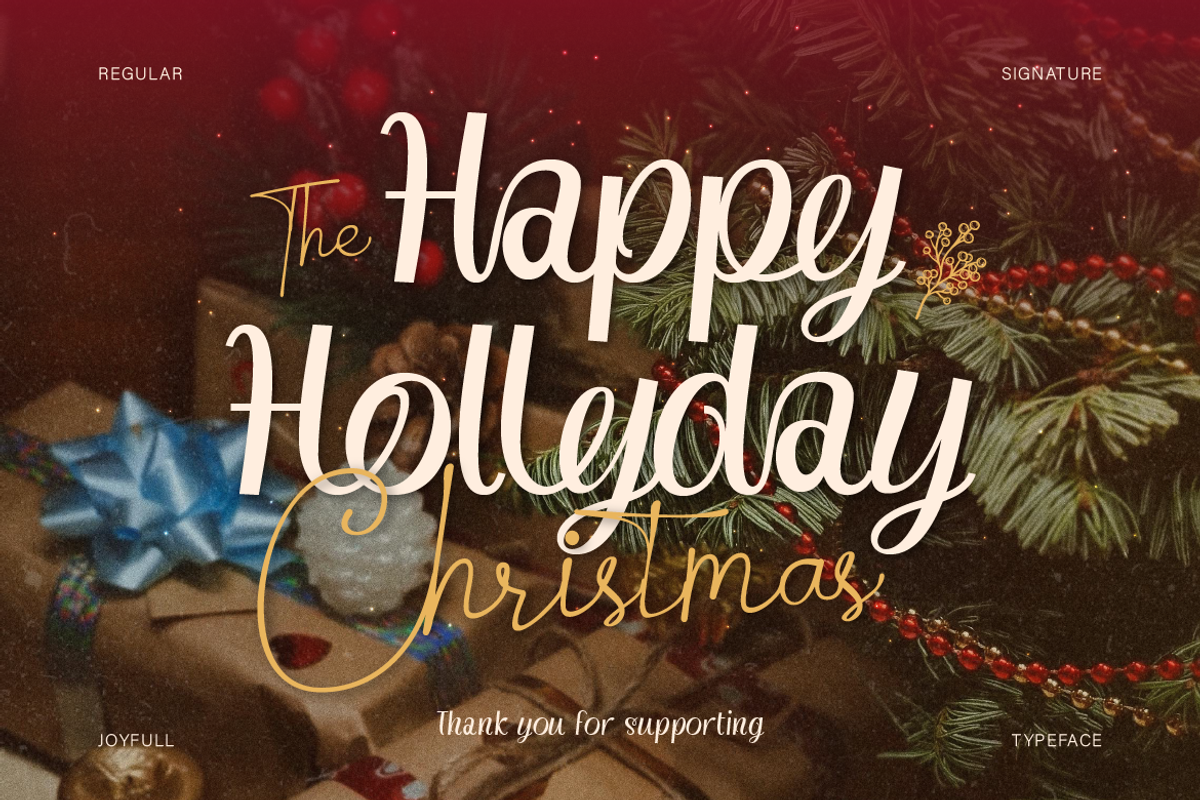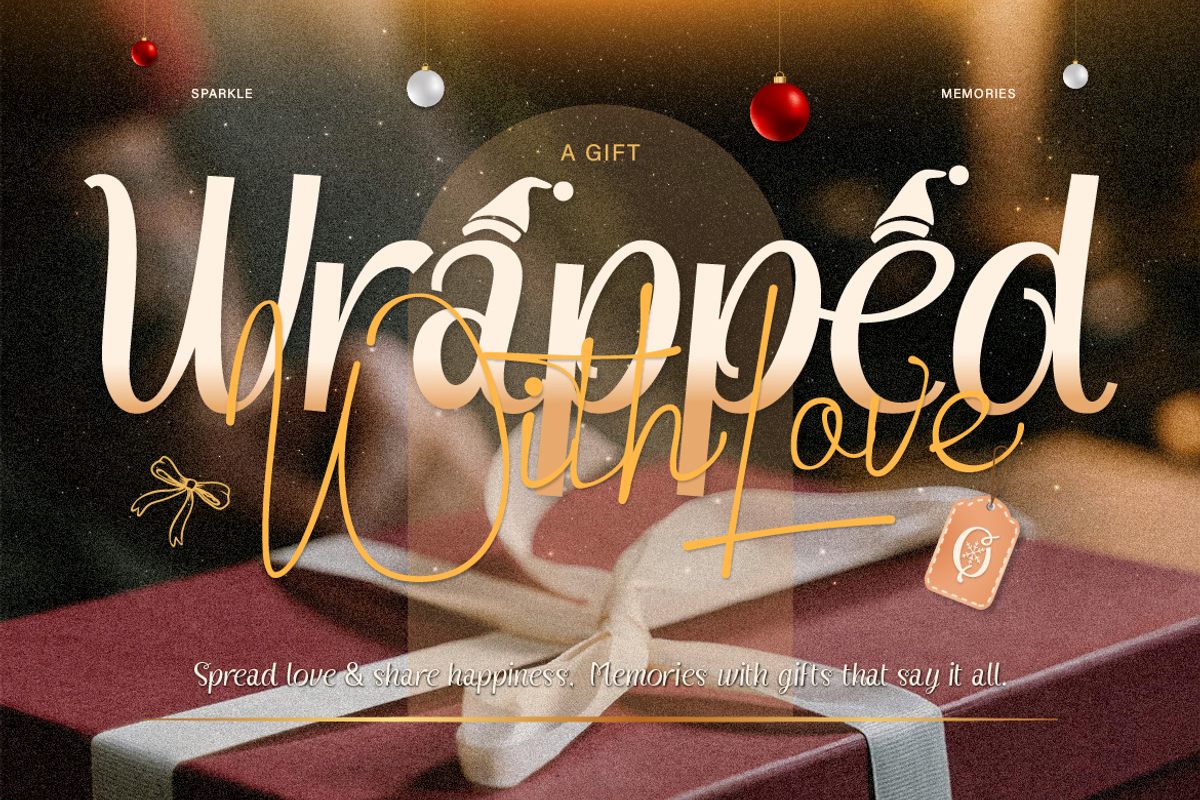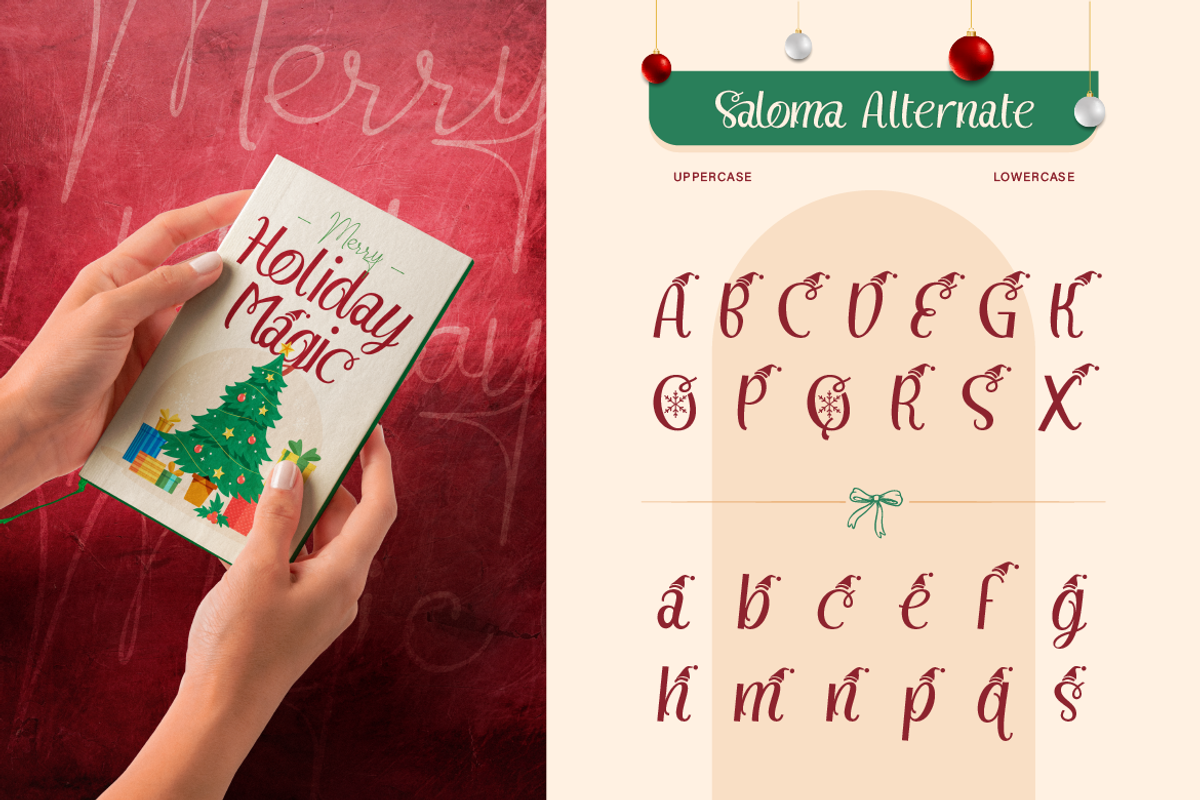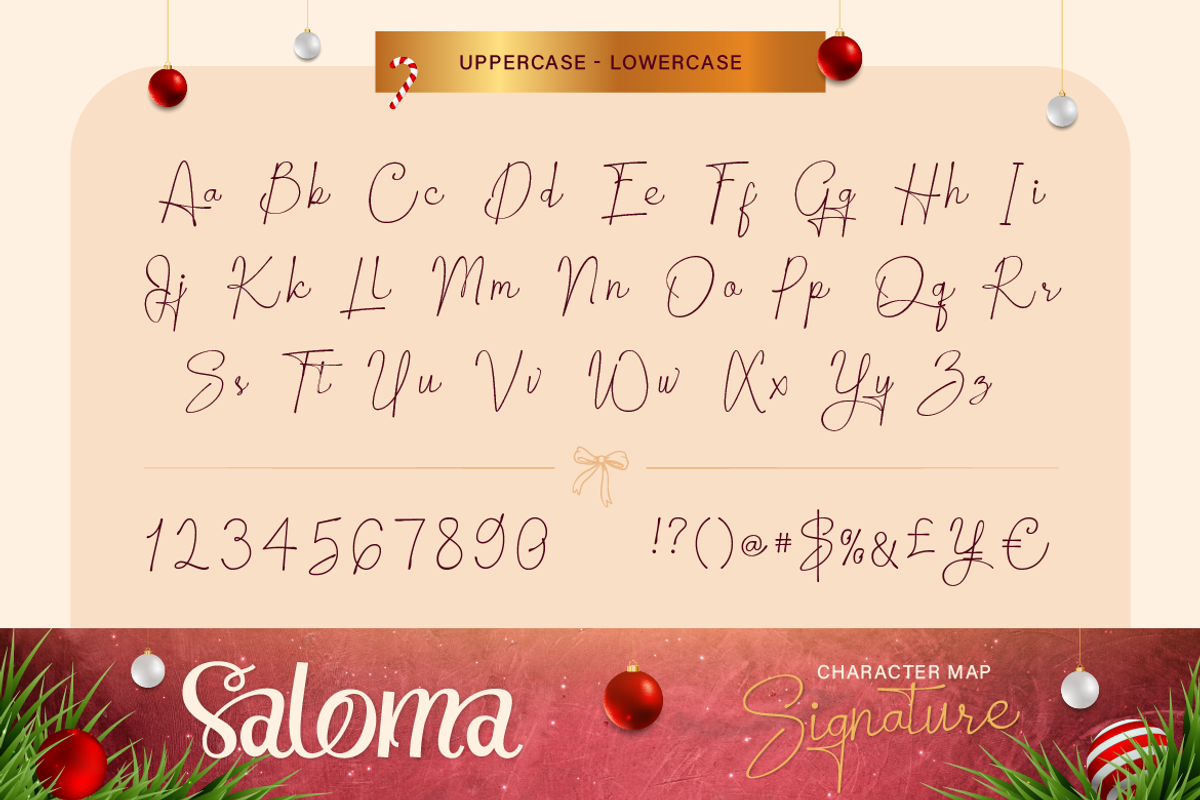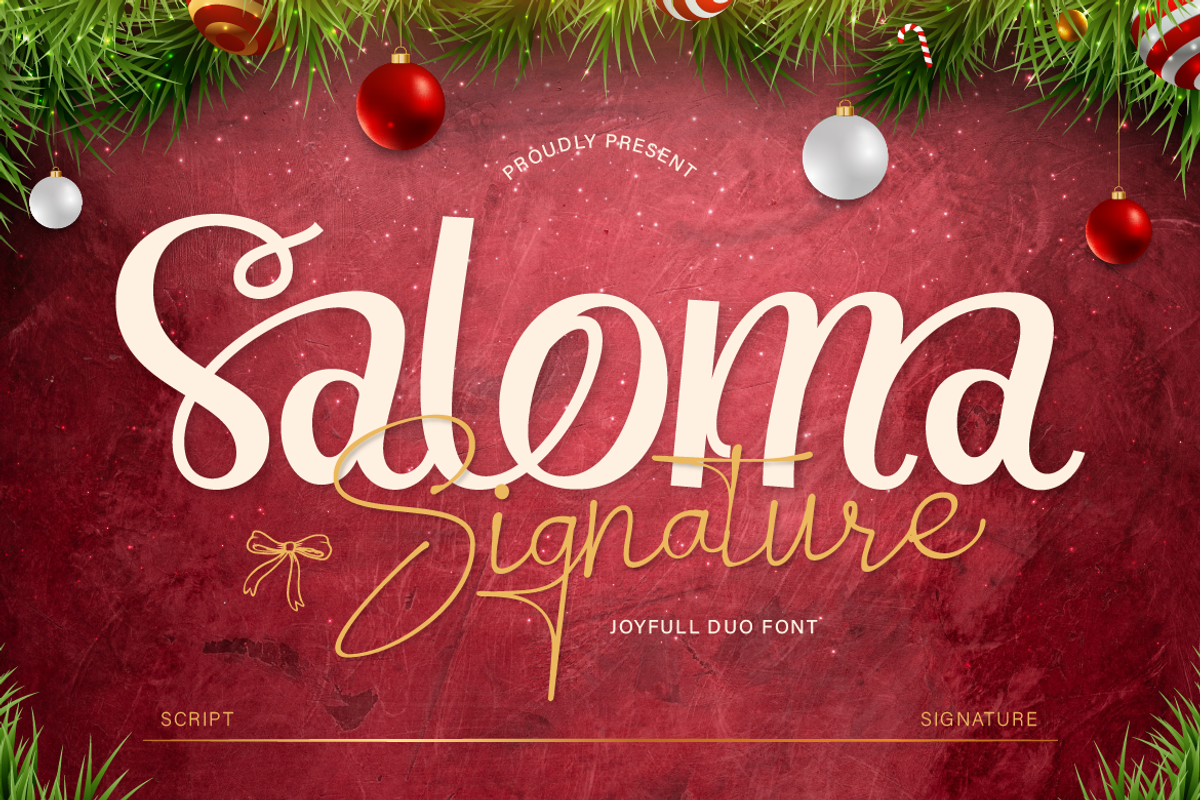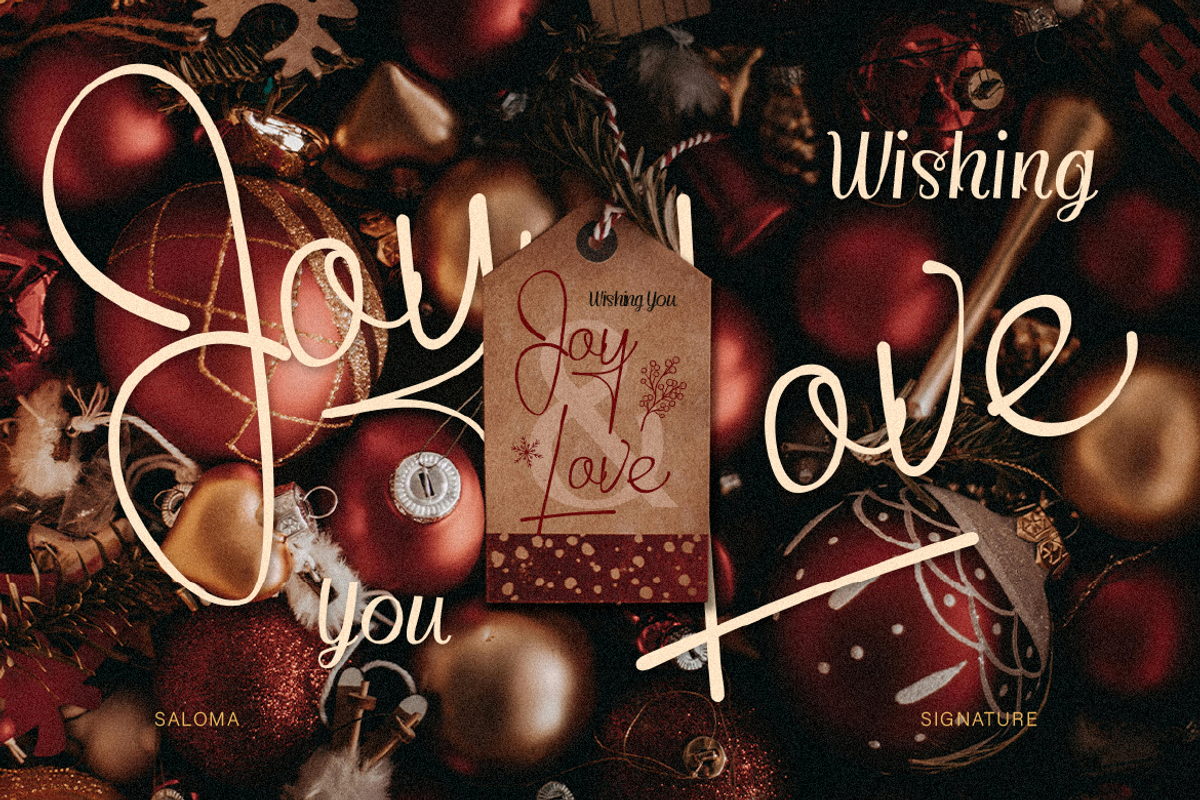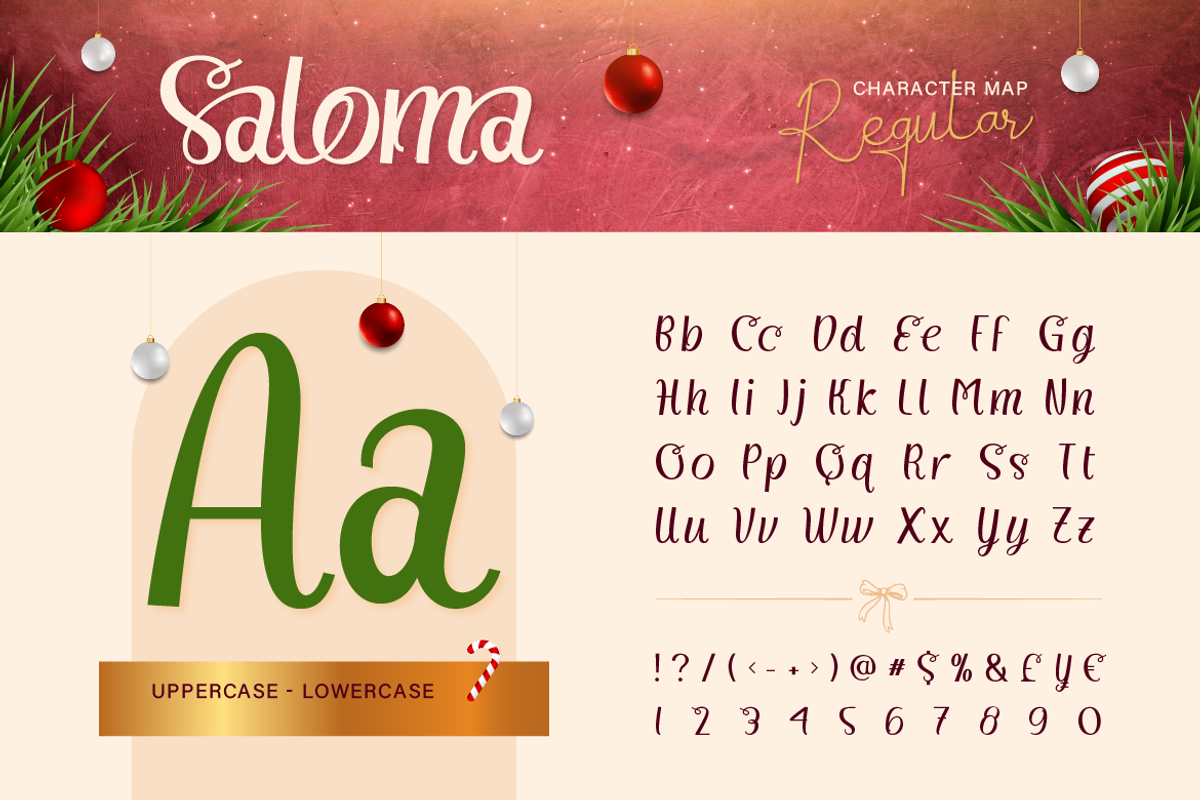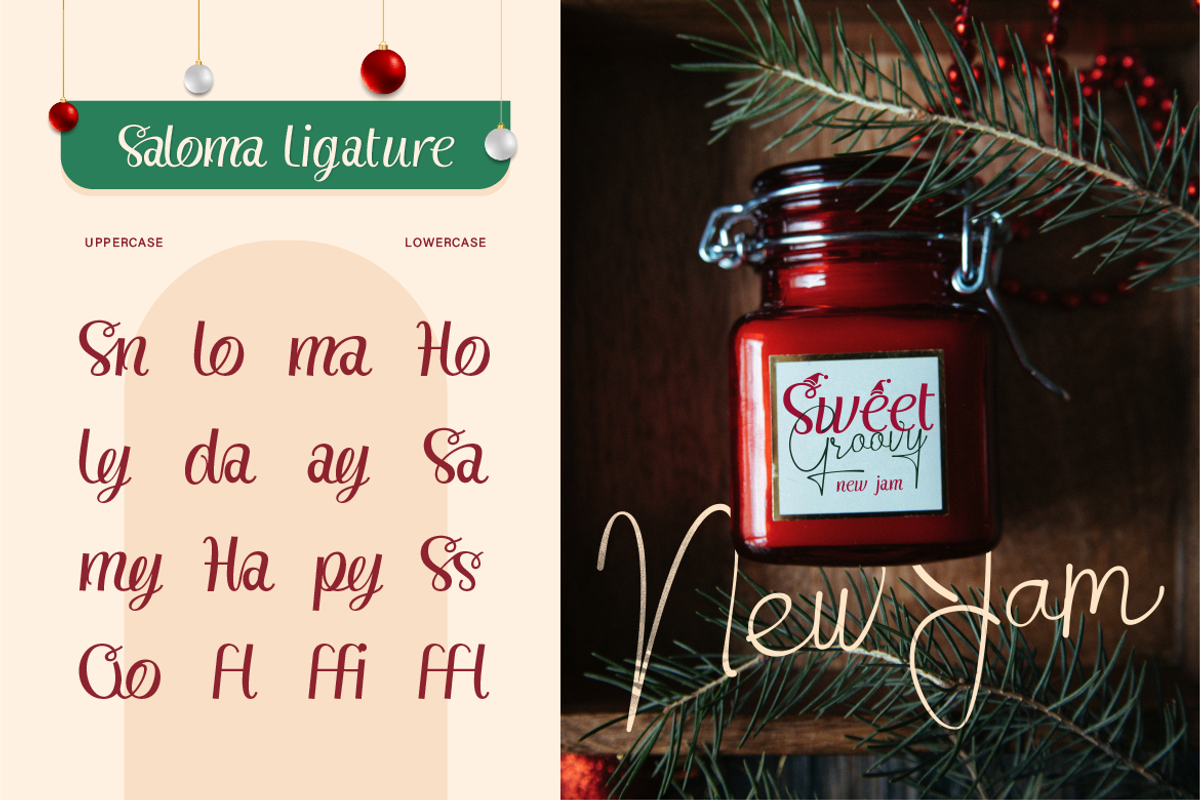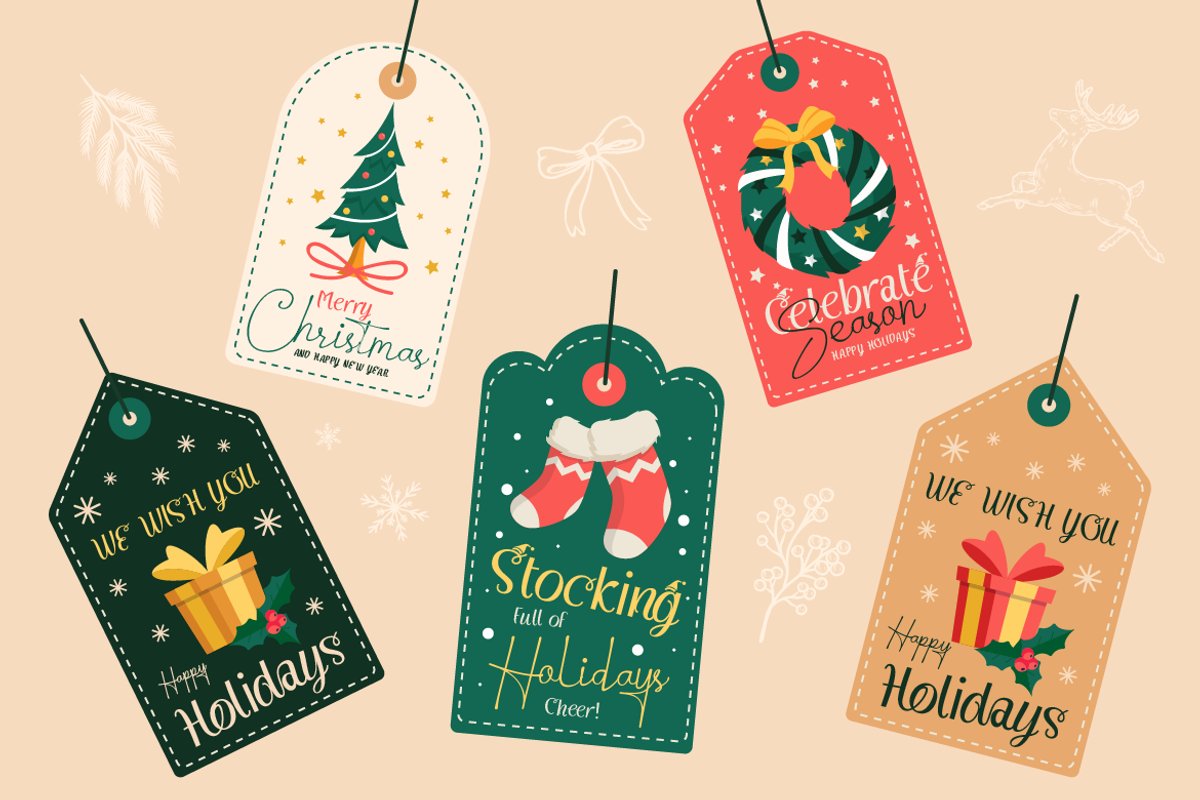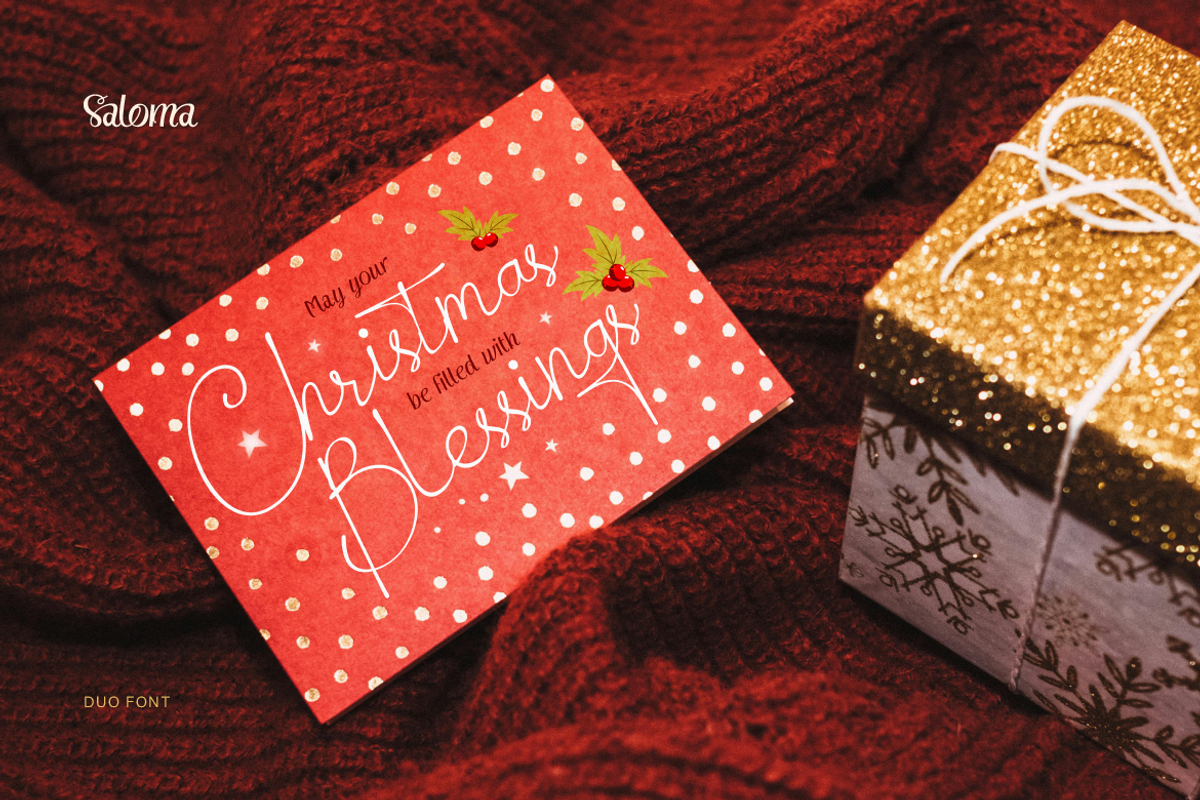
Saloma Signature
Say hello to Saloma Signature, our duo script font combines elegant script with a playful touch, making it the perfect choice for this holiday season. This flowing curves and delicate details create a beautiful and festive look. Also this duo font bring joy and warmth to your designs. Perfect for creating invitations, greeting cards, social media and so on. Saloma Signature includes alternates and ligatures, helping you to create truly unique design.
- A - Z set (Uppercase & Lowercase)
- Saloma Signature Characters Map